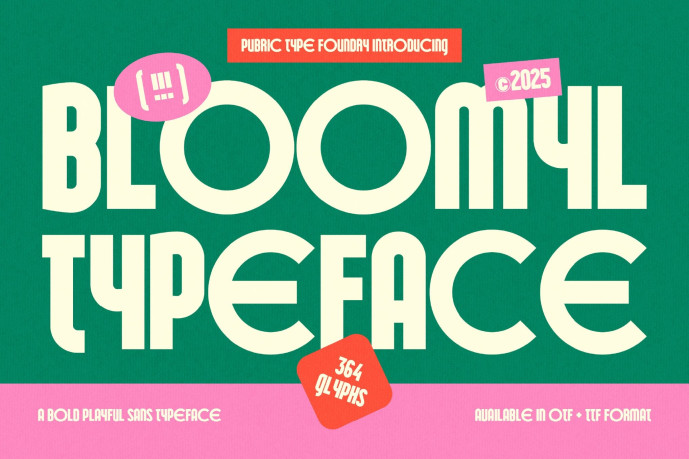
Bloomyl Font
Designer: pubric
Bloomyl Font is a bold sans-serif font with a geometric yet playful style. Its smooth curves and strong letterforms create a modern, eye-catching look—perfect for headlines, posters, branding, and designs that want to appear bold and lively.